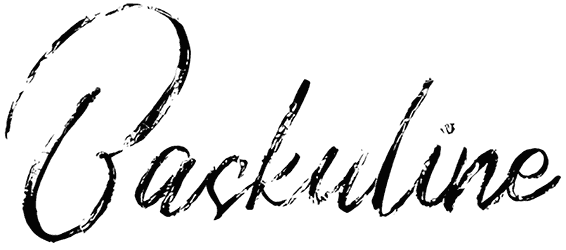
Darkline Font
Bring charm to your text layouts with this brush font. This tropical script font comes with cursive and flowing characters. Darkline can be perfect for branding, logos, posters, and whatnot. Note that this case doesn’t contain numbers and punctuation. Hit the download button right now and add an artistic touch to your project.
Designed by: Subectype Orenari